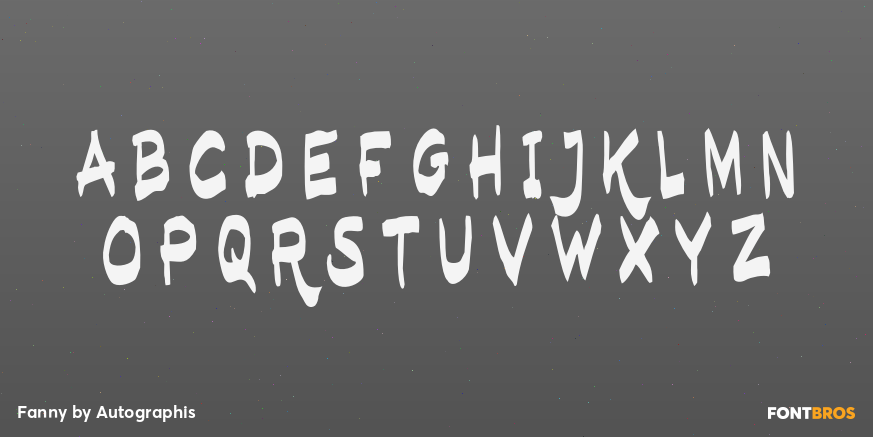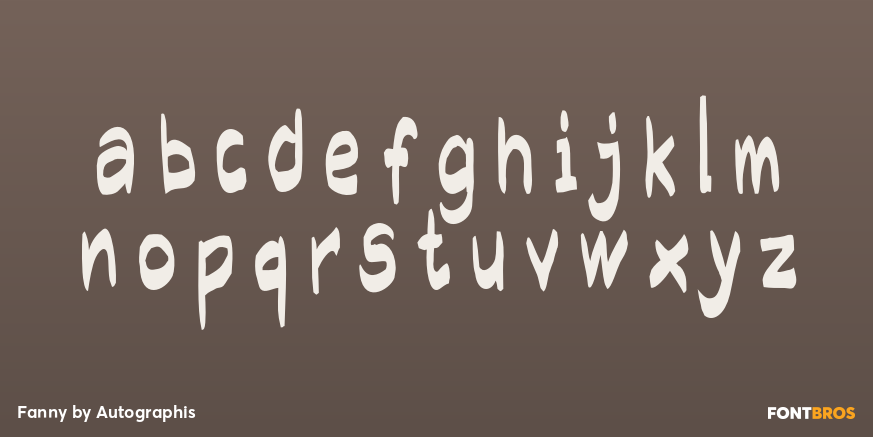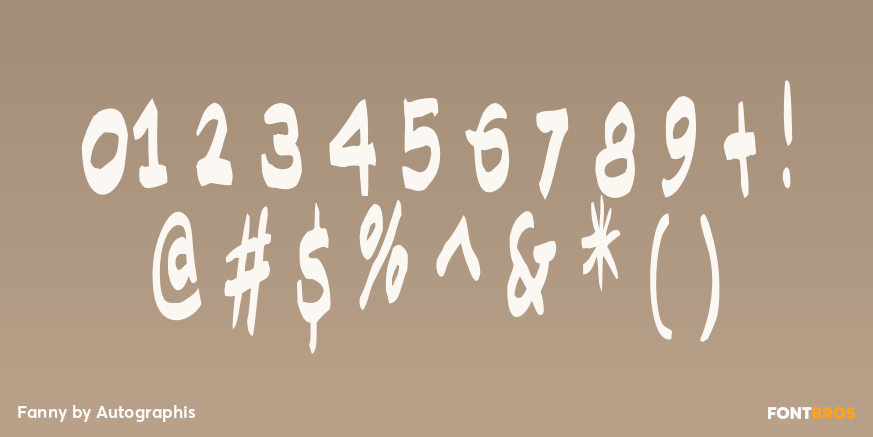
Fanny is written with a broad felt tip marker, scanned and finished by hand on screen, taking care to emphasize the typical "felttip-marker" feeling.